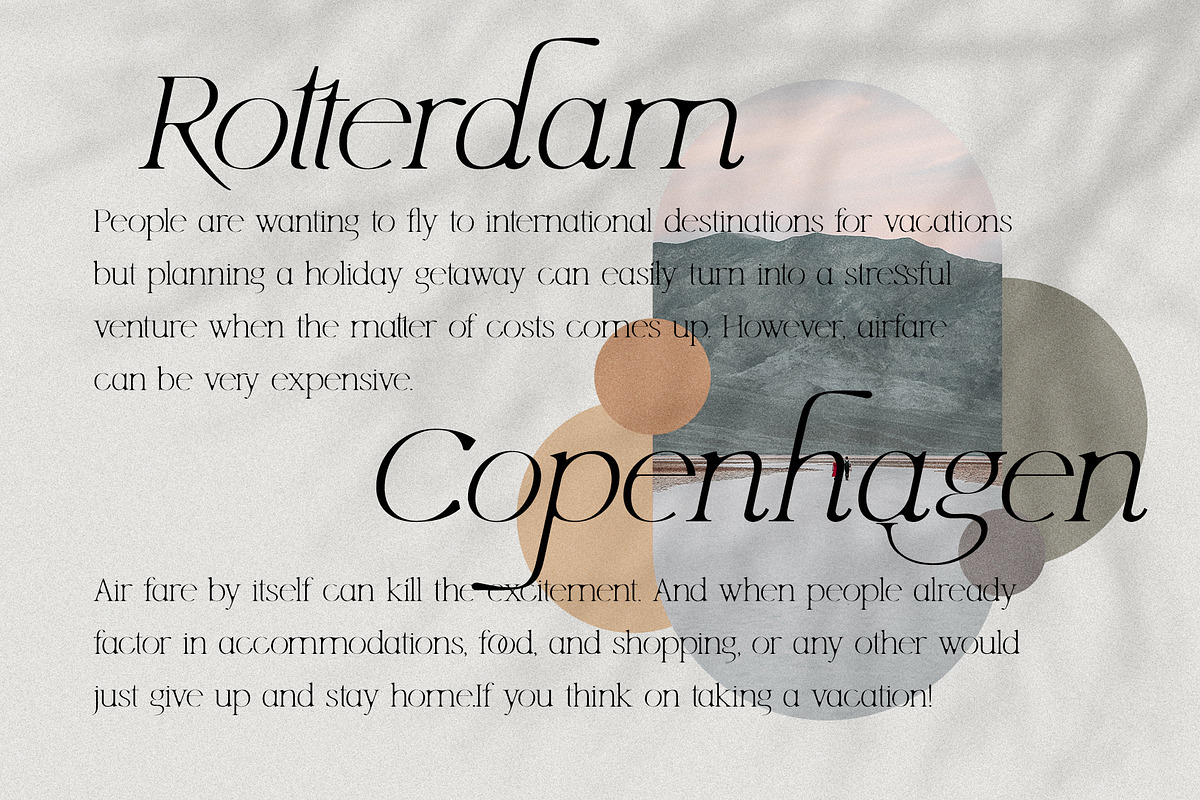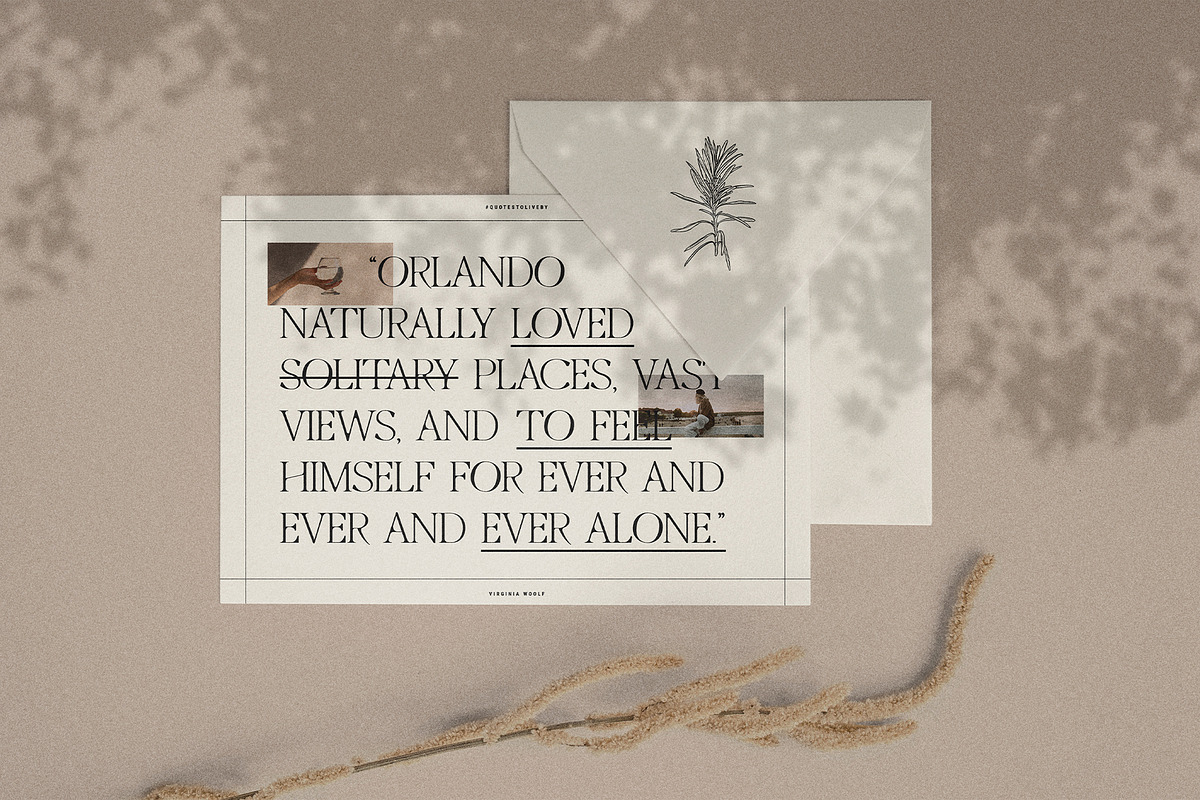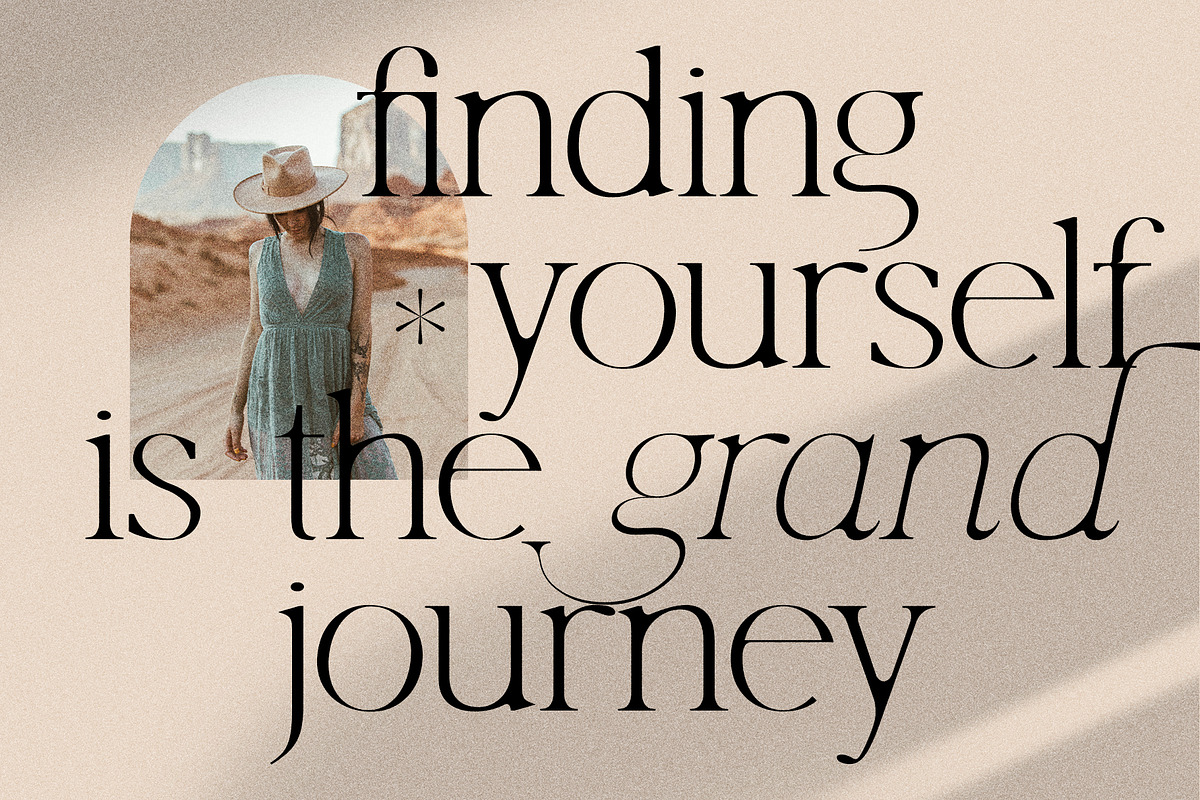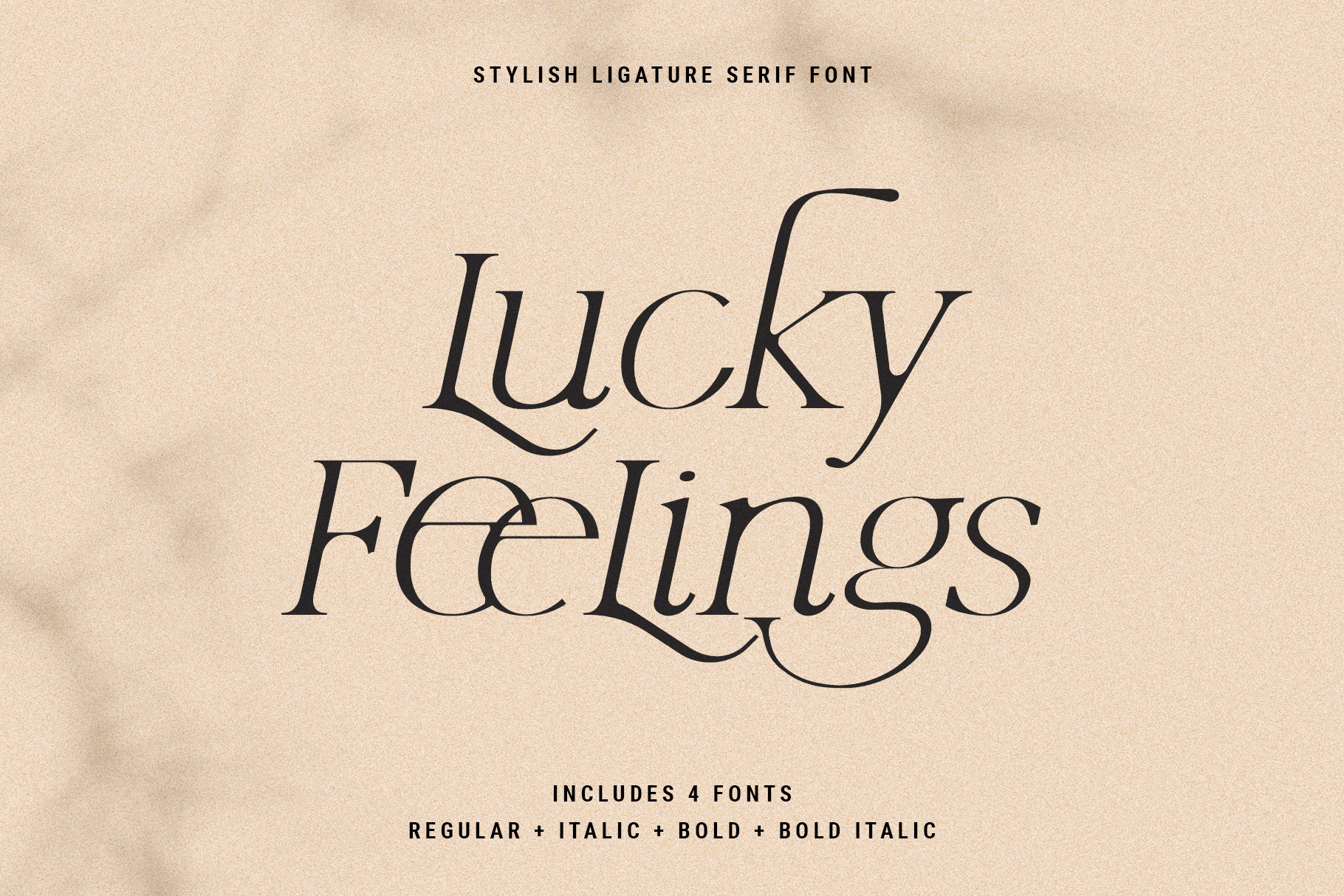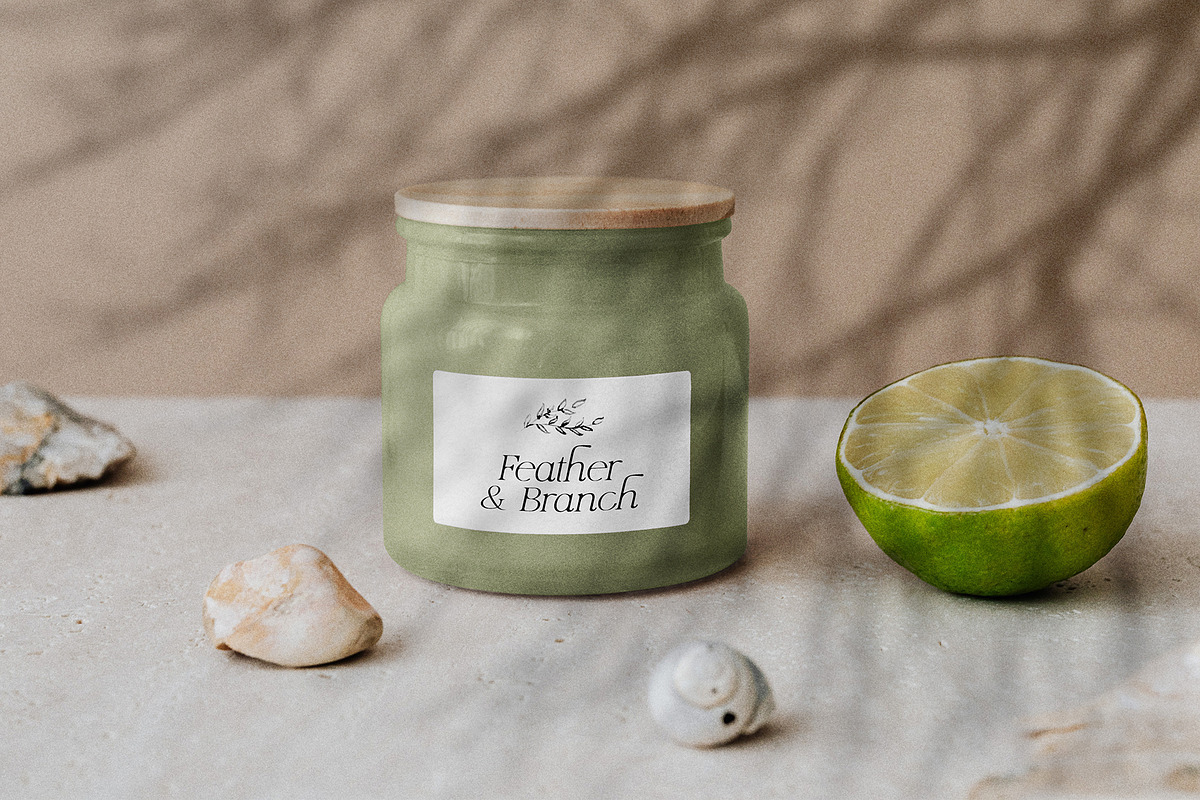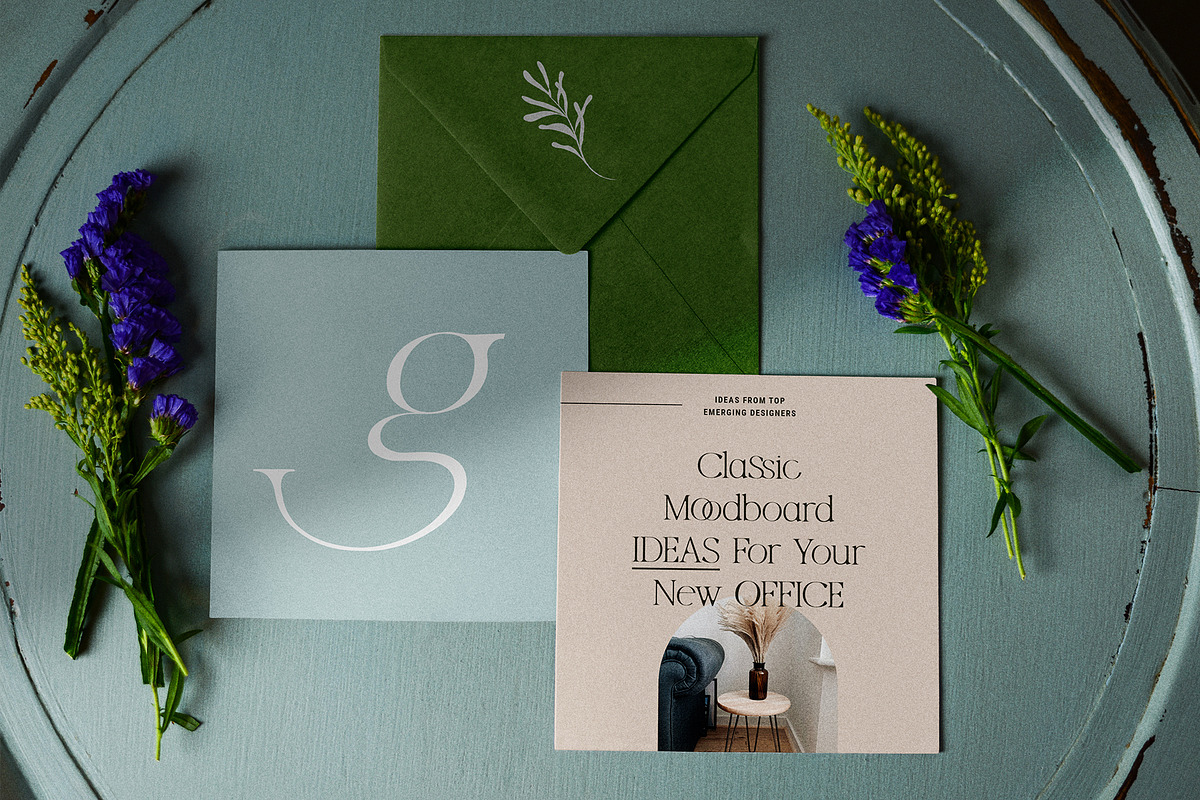
Lucky Feelings - Serif Font Family
Hey guys, are you already enjoying your summer vacation? Even if you're not, I am sure you are ready for one Lucky Feelings! Check out my new unique take on a classical serif font. I have created some pretty different letters and ligatures that will make al your designs stand out. This serif font family includes for font versions - regular, italic, bold and bold italic so you can mix and match them until you are 100% satisfied with your work!
So, whether you have a client that needs a new chic logo, or you're designing your social media posts. Maybe you're preparing your wedding mood board, stationery, invitations, Lucky Feelings Ligature font is just perfect for all of that and more. Check out the photos I have prepared for you to see what you can do with it and happy creating!
- Ligatures & Alternate letters